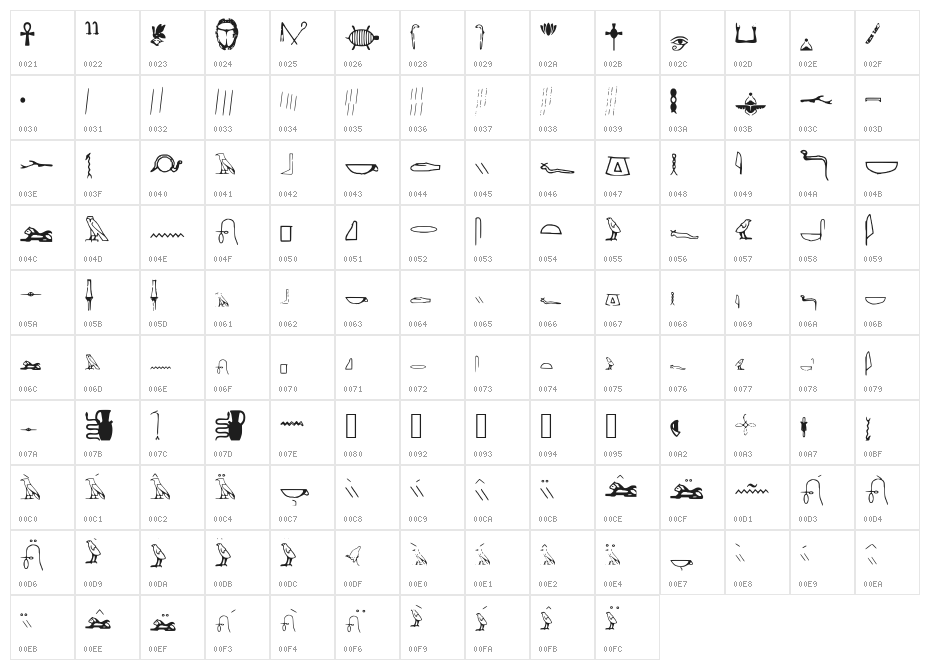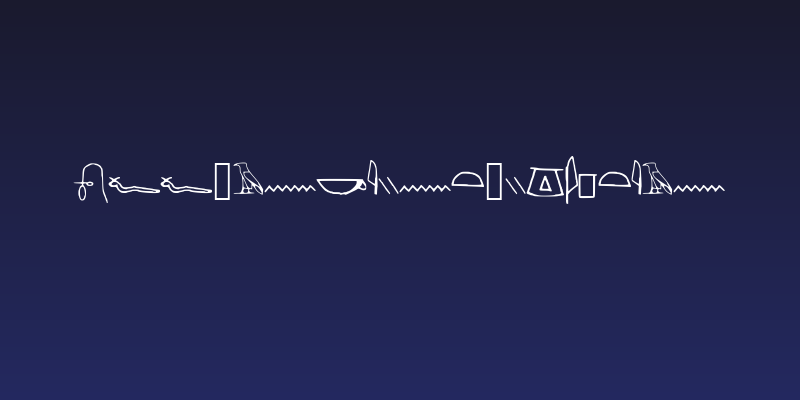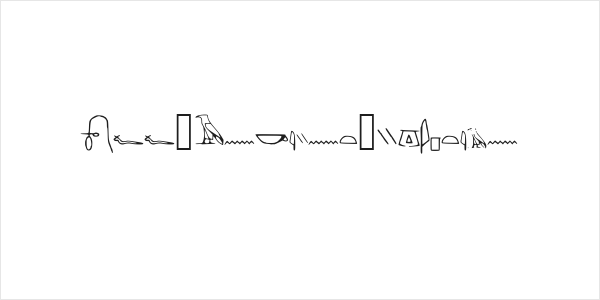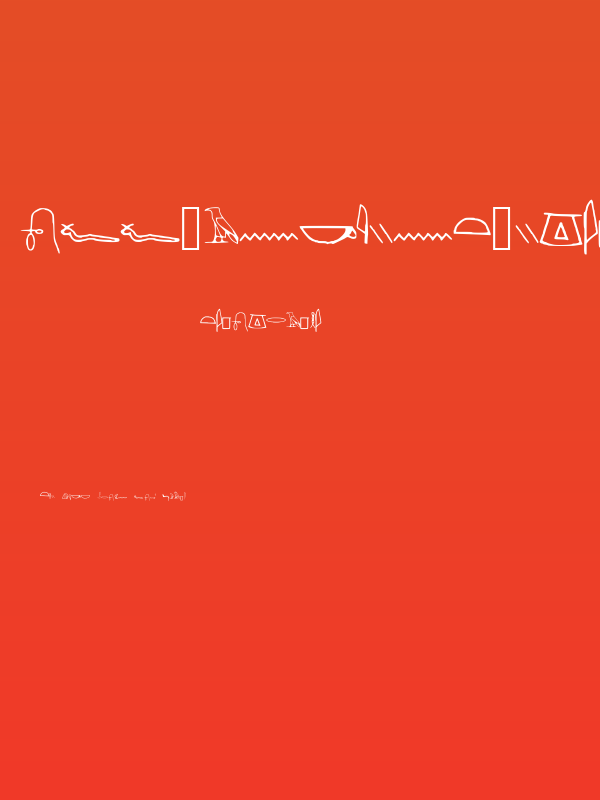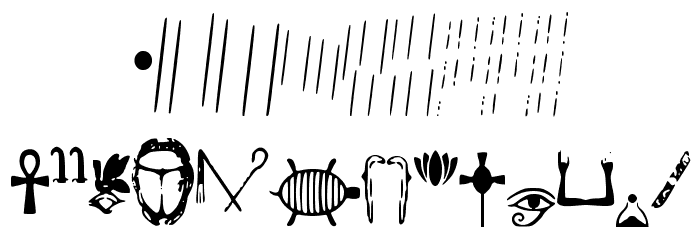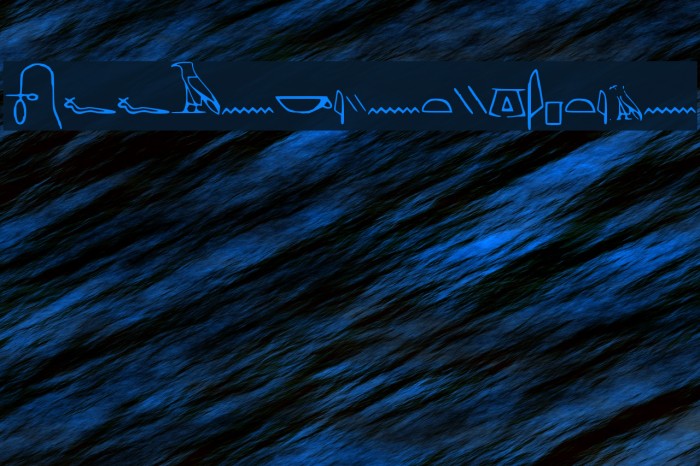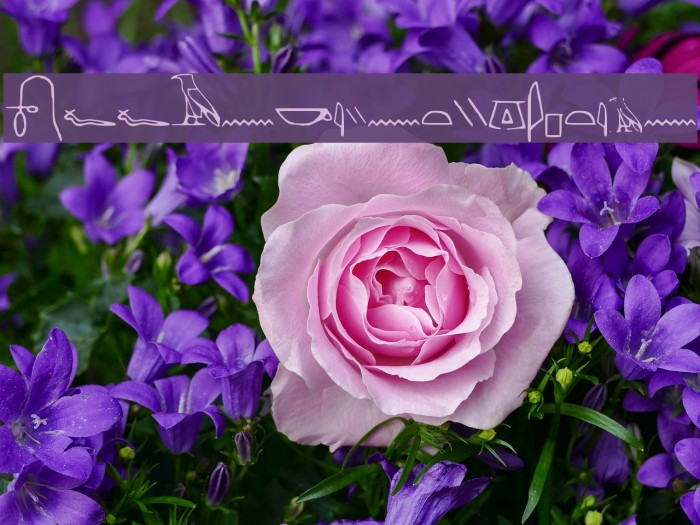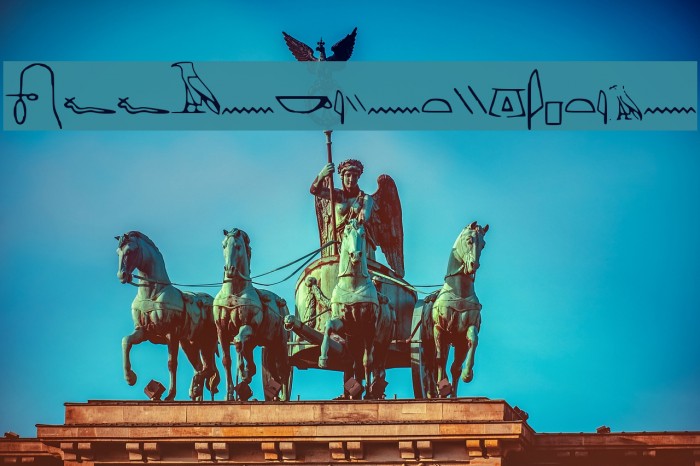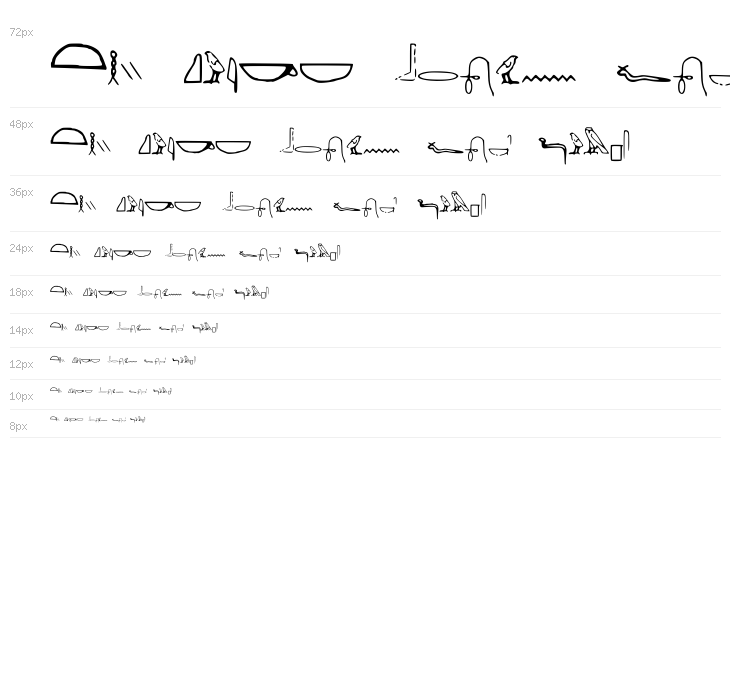
Off_Ancient_Egyptian Font
Off_Ancient_Egyptian Description
A decorative typeface inspired by ancient Egyptian hieroglyphs, featuring intricate pictorial symbols and glyphs instead of traditional Latin characters. The symbols are highly detailed, with varying line thickness and organic shapes, evoking the look of historical inscriptions.
| Overall Style | Decorative, Historical |
| Use Case | Logos, Headlines, Themed graphics, Educational content |
| Proposed Projects | Historical displays, educational materials, themed posters, museum exhibits, decorative titles. |